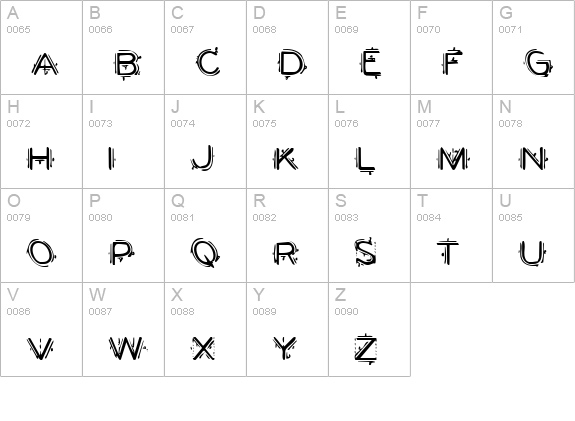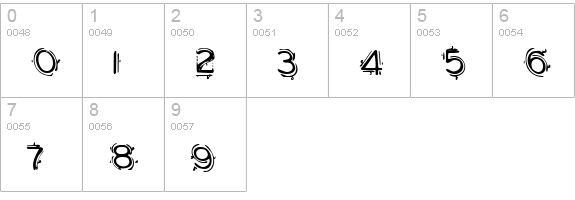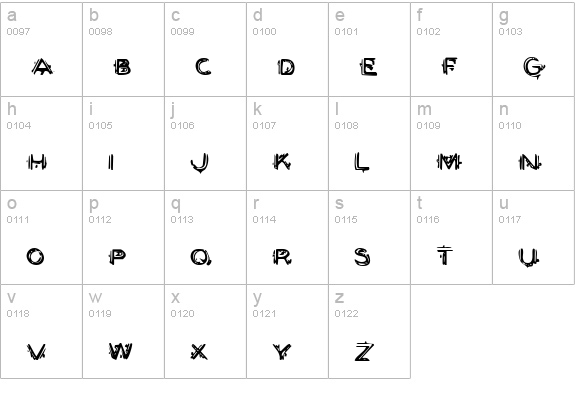
Introducing Berserker font, a bold and powerful typeface designed to make a statement. With its aggressive edges and strong presence, Berserker is perfect for projects that demand attention. This font exudes energy and intensity, making it ideal for titles, headlines, and branding materials. Best of all, Berserker font is available for free download at FontsMarket.com. Whether you're a designer, a business owner, or a creative enthusiast, this font is a valuable addition to your collection. Stand out from the crowd and unleash the power of Berserker font in your next project.